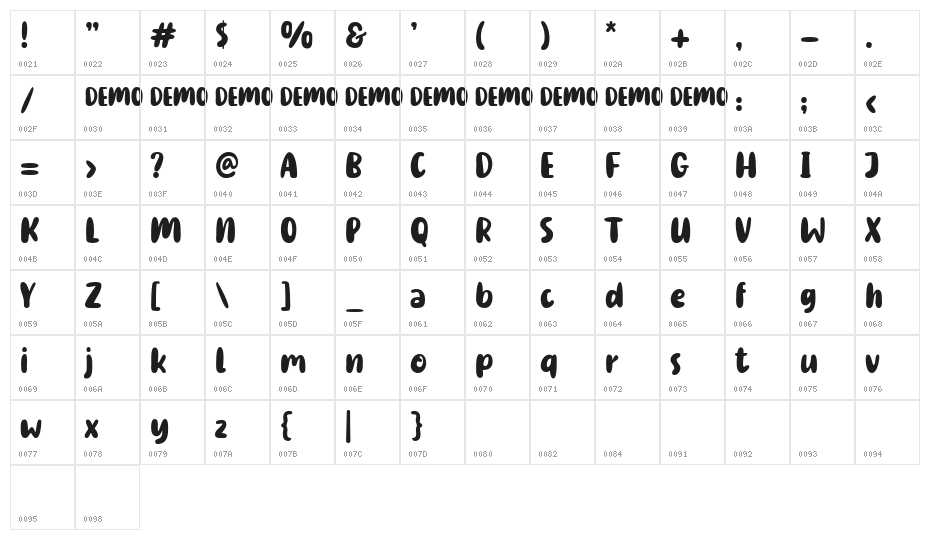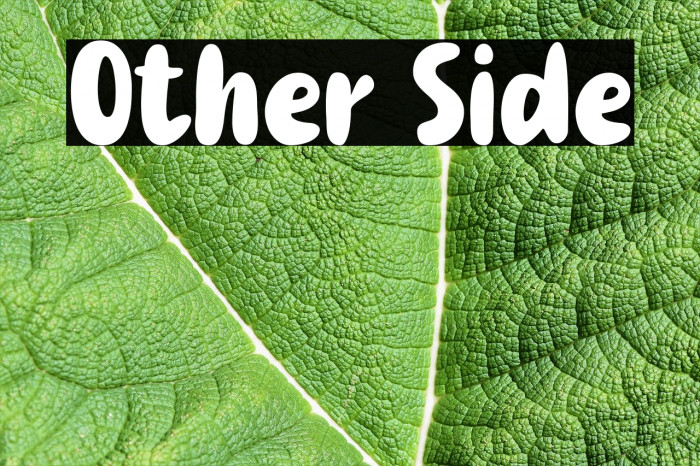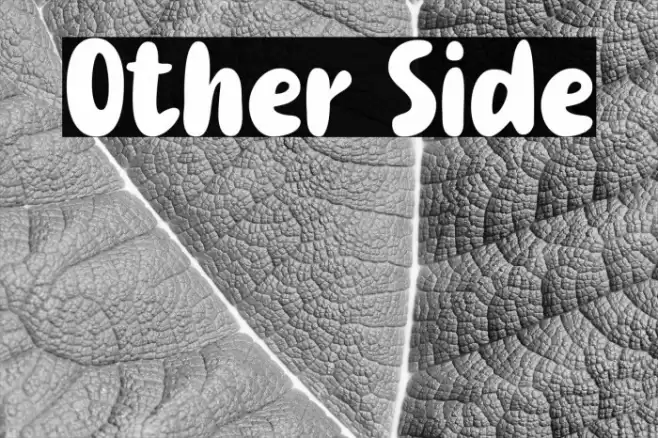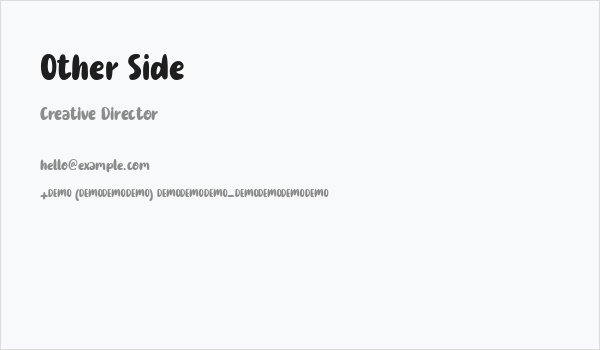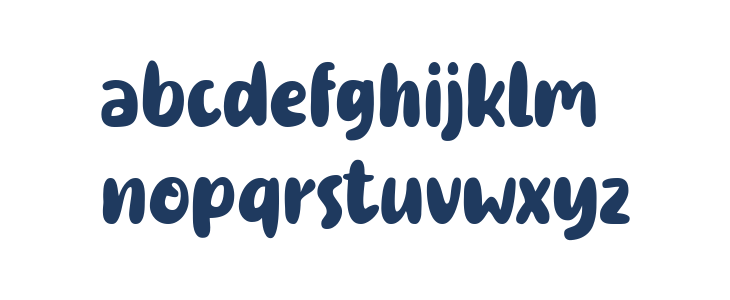
Other Side Font
Other Side Description
This font features a playful and bold style with rounded edges and a slightly irregular form, giving it a hand-drawn appearance. The uppercase and lowercase letters are consistent in their whimsical design, making them stand out with a friendly and approachable feel. The numbers and special characters maintain the same playful aesthetic, ensuring uniformity across all glyphs. The strokes are thick and uniform, contributing to a strong visual presence. This font is ideal for projects that require a fun and informal tone, such as children's books, playful branding, or creative posters.
| Overall Style | Playful, Hand-drawn |
| Proposed Projects | Children's books, playful branding, creative posters, informal invitations. |